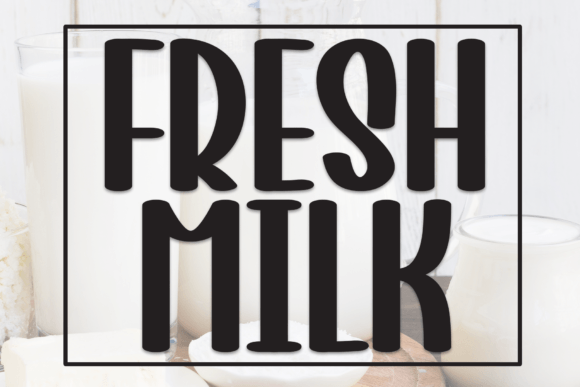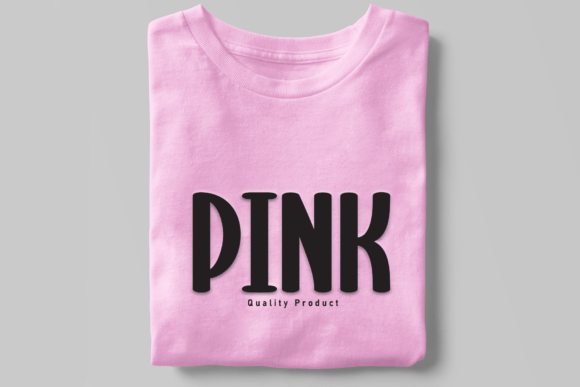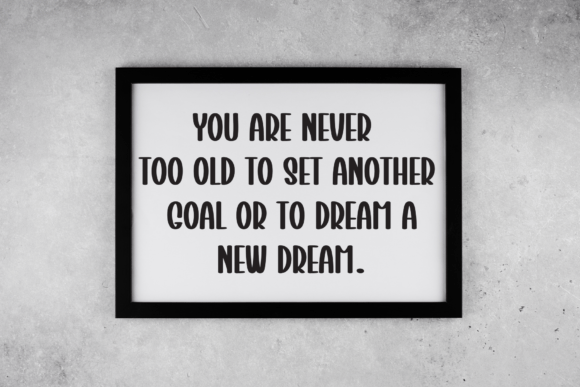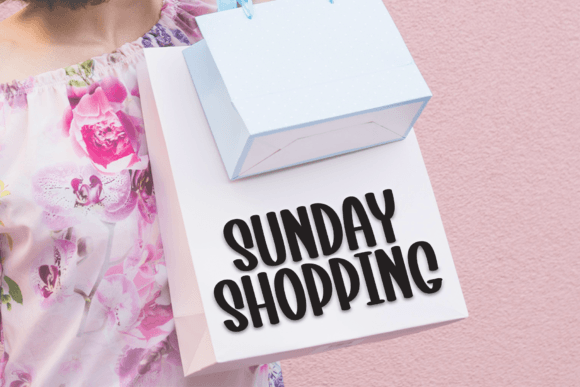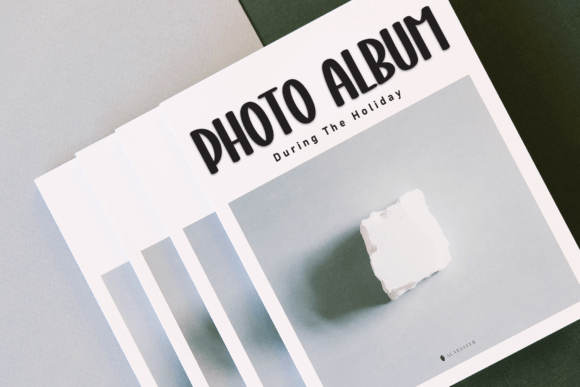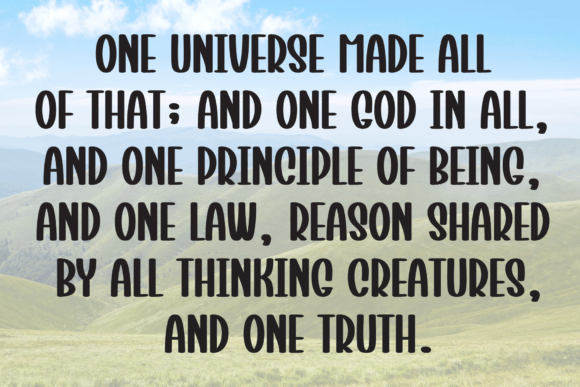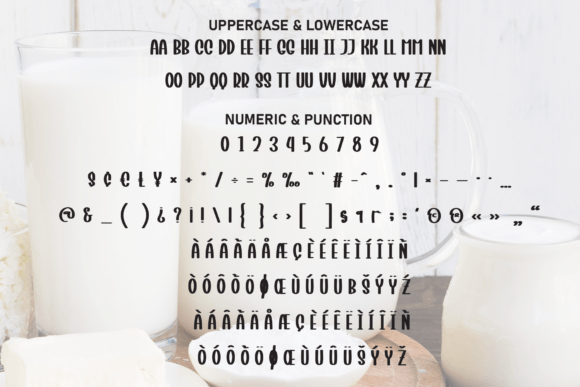
Where Creativity Meets Elegance: Introducing Fresh Milk Font
Do you remember the moment when a design sparks inspiration and everything else fades into the background? For designers, these moments are what drive us to create something truly special. Whether it’s a wedding invitation, a brand logo, or a social media post, the right font can elevate a design from ordinary to extraordinary.
Enter Fresh Milk Font, a stylish display font that exudes elegance and charm. Its fluid strokes and natural flow create a captivating, sophisticated look that’s perfect for adding a personal touch to any design. With Fresh Milk Font, designers can bring a sense of warmth and creativity to their work, making it a valuable addition to any design toolkit.
Fresh Milk Font Key Features
- Font Family: Fresh Milk Font is a sans-serif font family designed for digital use.
- Unique Characteristics: Fresh Milk Font features a clean and modern design with subtle rounded edges, making it suitable for use in digital interfaces, editorial content, and branding materials.
- Character Set: Includes a comprehensive set of characters, including Latin, Cyrillic, and Greek alphabets, as well as punctuation and symbols.
Designer Review: Fresh Milk Font
At first glance, I was drawn to the playful and quirky nature of Fresh Milk Font. The designer has done a great job of capturing the feel of a cold glass of milk on a hot summer day. The font is perfect for anyone looking for a fun and casual sans-serif typeface.
- Unique character shapes and ligatures that give the font a lot of personality
- Excellent legibility, even at smaller font sizes
- Supports a wide range of languages, making it a great choice for multilingual projects
- Lack of consistency in the design of certain letterforms, which can make it look a bit uneven at times
- No italic or bold styles available, which may limit its use in certain design contexts
Overall, I think Fresh Milk Font is a great addition to any designer’s toolkit. While it may have some limitations, its unique personality and excellent legibility make it a great choice for a wide range of projects. With a bit of tweaking and refinement, I think this font has the potential to become a real standout in the world of sans-serif typefaces.
Tips for Getting the Most Out of Fresh Milk Font
Here are some tips for getting the most out of Fresh Milk Font:
– Use it for headings and titles to add a touch of elegance and sophistication.
– Pair it with other fonts to create a unique and interesting typography.
– Experiment with different font sizes and colors to create a visually appealing design.
Here are some common use cases for Fresh Milk Font:
– Luxury branding and packaging
– High-end magazine and newspaper designs
– Artistic and creative projects
Alternatives to Fresh Milk Font for Designers
Great Vibes Font is a modern script font that is perfect for creating a friendly and approachable tone. It is ideal for use in branding, packaging, and advertising materials where a casual and relaxed feel is desired. Compared to Fresh Milk Font, Great Vibes Font has a more playful and whimsical feel, making it suitable for a wider range of design applications.
Alex Brush Font is a elegant and sophisticated script font that is perfect for creating a high-end and luxurious tone. It is ideal for use in branding, packaging, and advertising materials where a sense of refinement and sophistication is desired. Compared to Fresh Milk Font, Alex Brush Font has a more formal and polished feel, making it suitable for use in more formal design applications.